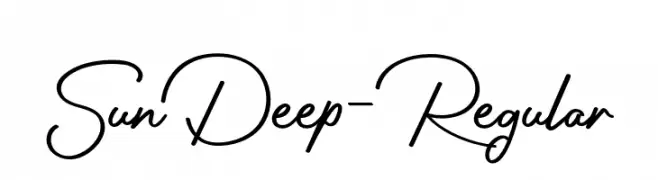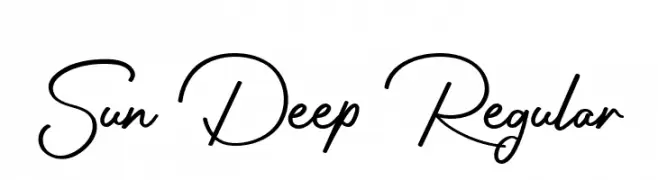
An elegant cursive font with flowing, sophisticated strokes.
A flowing, cursive script font with elegant loops and flourishes.
A cursive, handwritten-style font with elegant, flowing lines.
A graceful, flowing script font with a handwritten style.